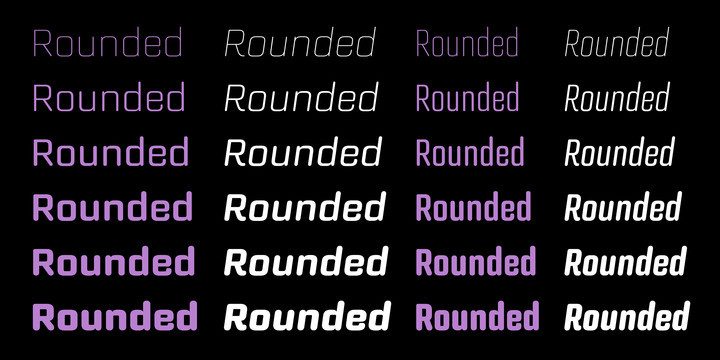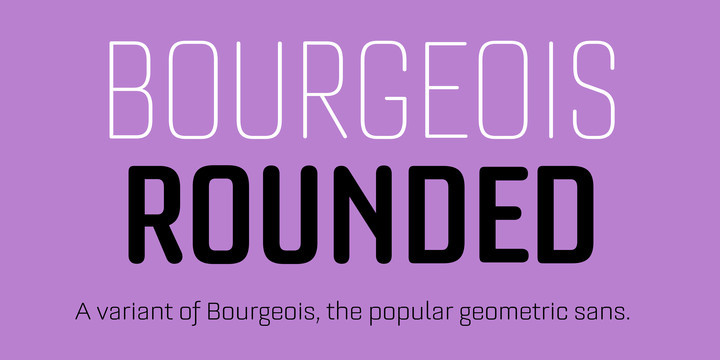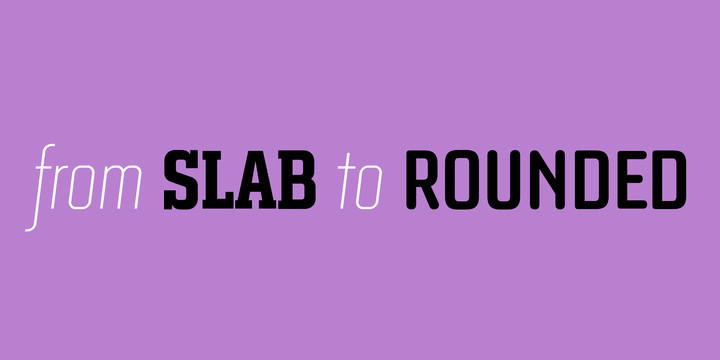
Bourgeois Rounded is built upon the framework of Bourgeois, our popular geometric type family. As with the sans-serif Bourgeois Rounded letterforms are contemporary in look and feel. Echoing late 20th century modernism in style, Roundedβs overall look is clean and sleek, more ephemeral and dynamic than Bourgeoisβs pared-down asceticism.